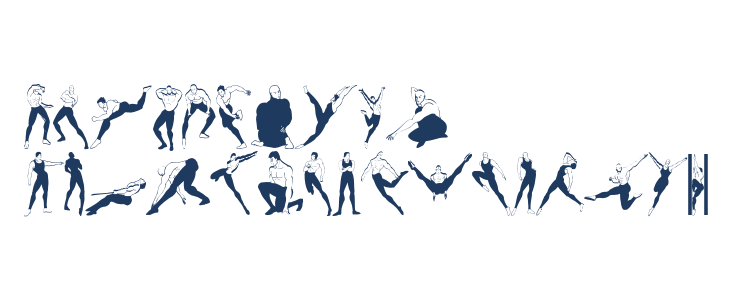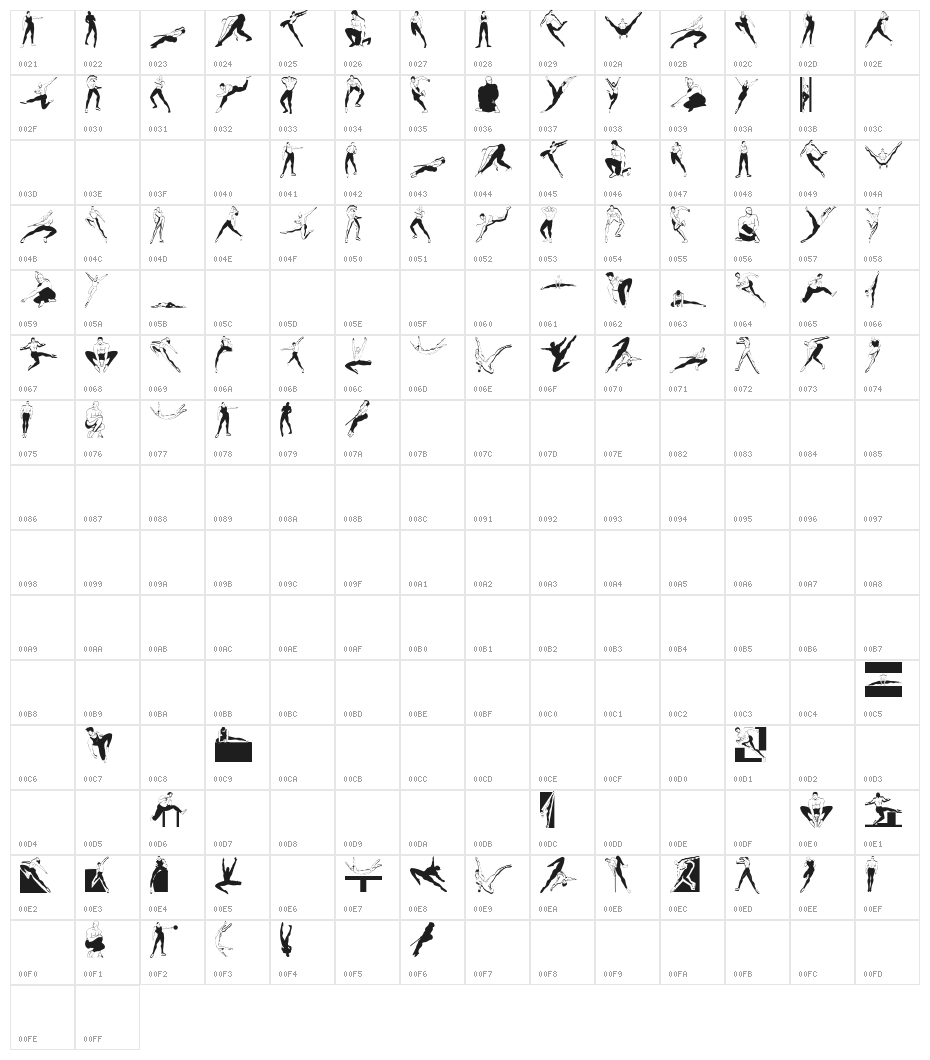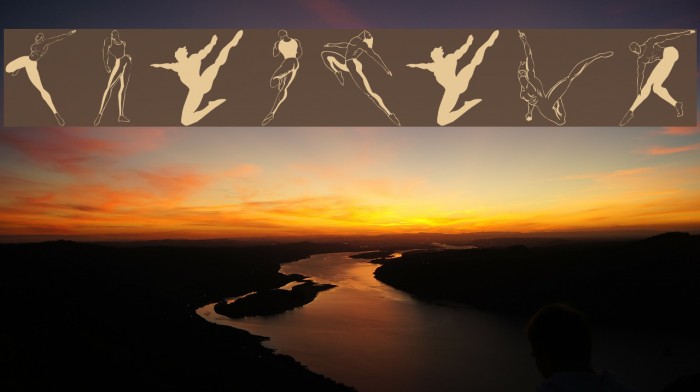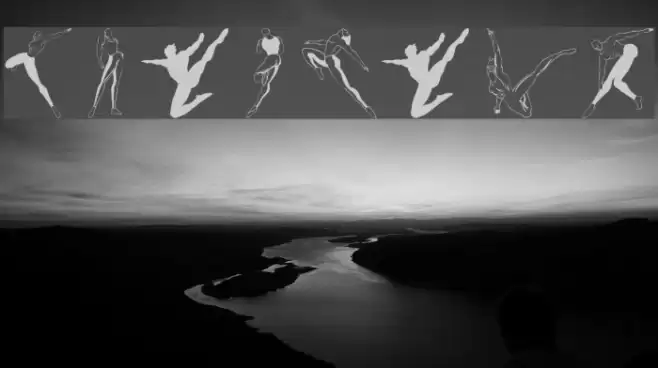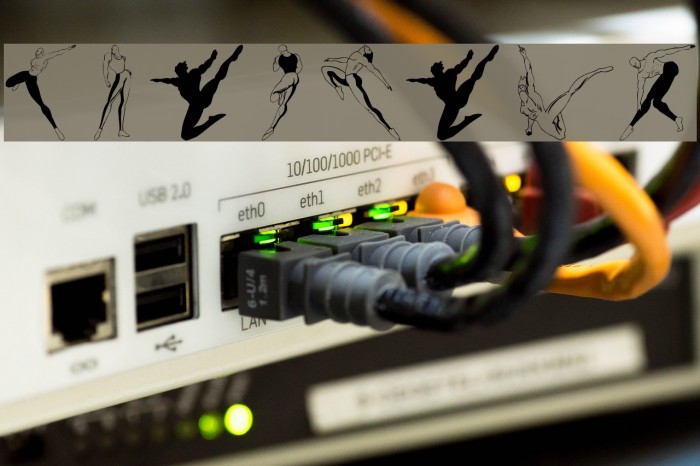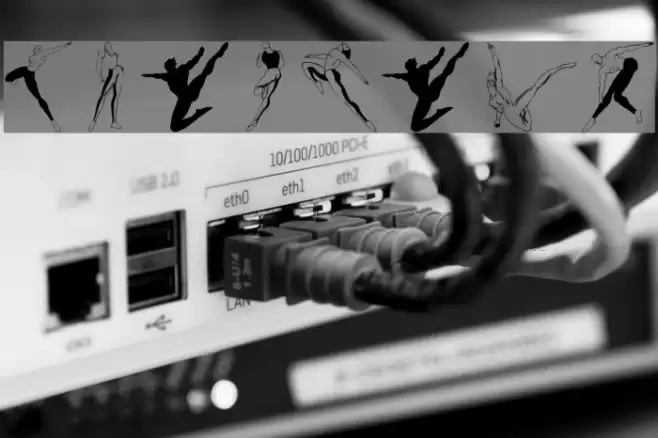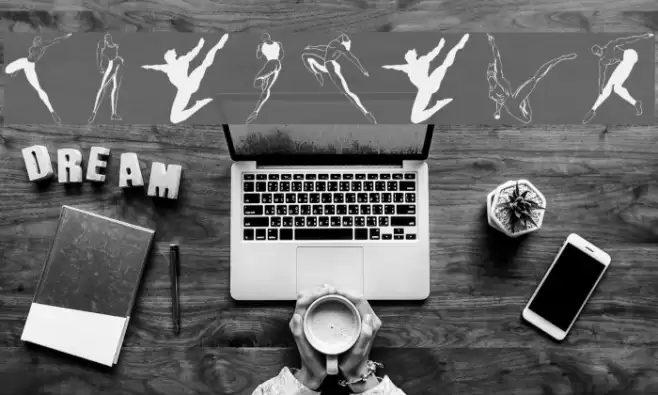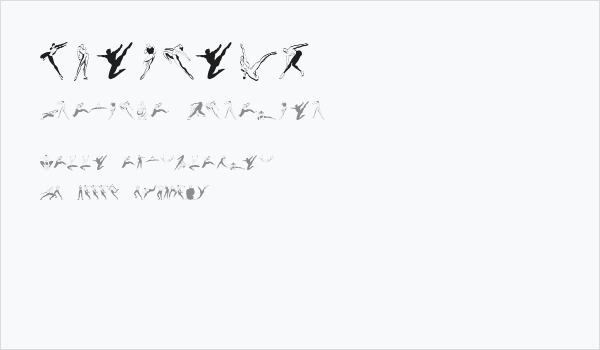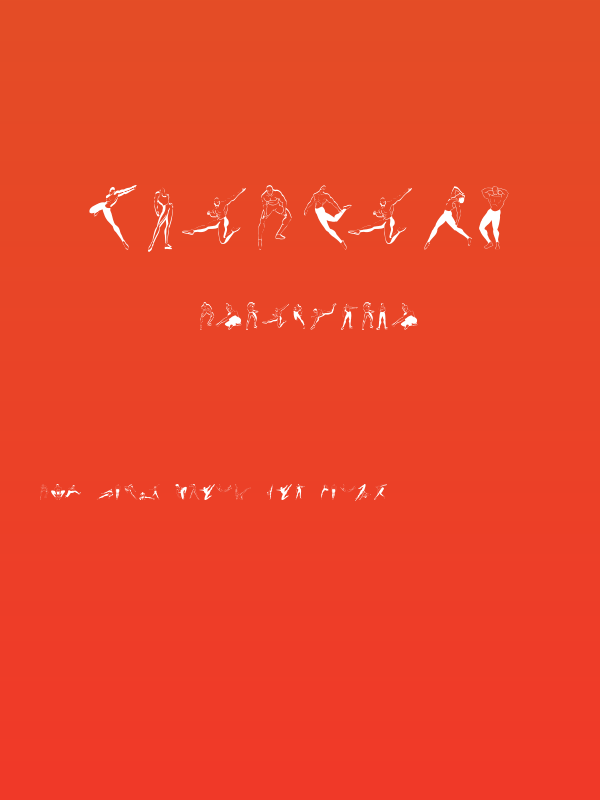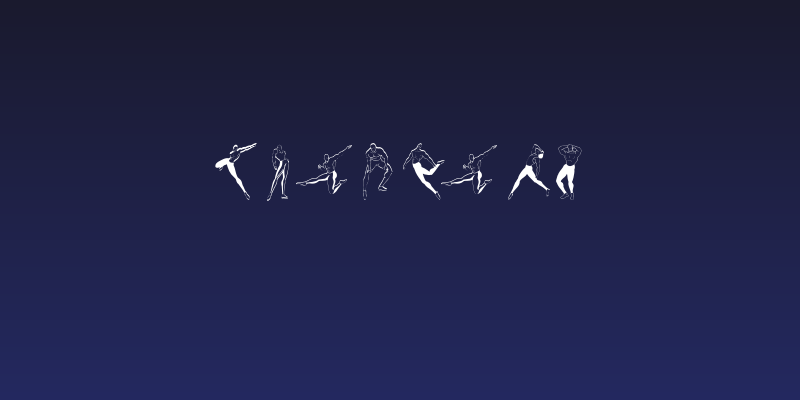
EMotions Font
EMotions Description
A decorative display typeface composed of stylized human figures in various dynamic poses representing each character, creating a unique and artistic visual alphabet.
| Overall Style | Artistic, expressive, and dynamic |
| Use Case | Headlines, logos, and artistic design projects |
| Proposed Projects | Artistic posters, dance or performance event branding, creative logos, and unique headlines. |